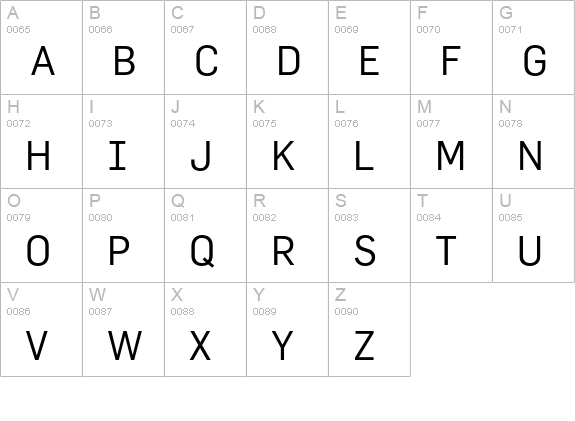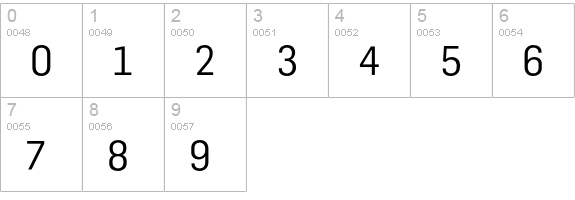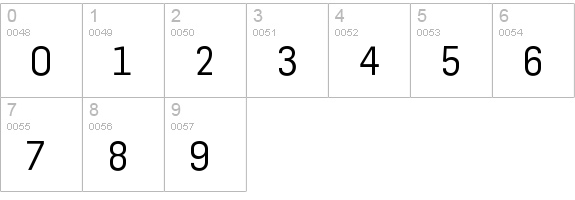
FlamaBook Font Details
Introducing FlamaBook font, a beautifully crafted typeface that exudes elegance and sophistication. With its clean lines and modern design, FlamaBook is perfect for a wide range of projects, from branding to editorial design. Its versatility makes it suitable for both print and digital applications, ensuring that your message is delivered with style and clarity. But what sets FlamaBook font apart is that it is not only visually stunning, but it is also free to download. That's right - you can access this high-quality font at no cost, making it a valuable addition to your design toolkit. Simply visit FontsMarket.com to get your hands on FlamaBook and elevate your designs with this exceptional typeface. Whether you're working on a logo, website, poster, or any other project that requires a touch of sophistication, FlamaBook font is sure to impress. Download it today and bring your design vision to life with this elegant and versatile typeface.